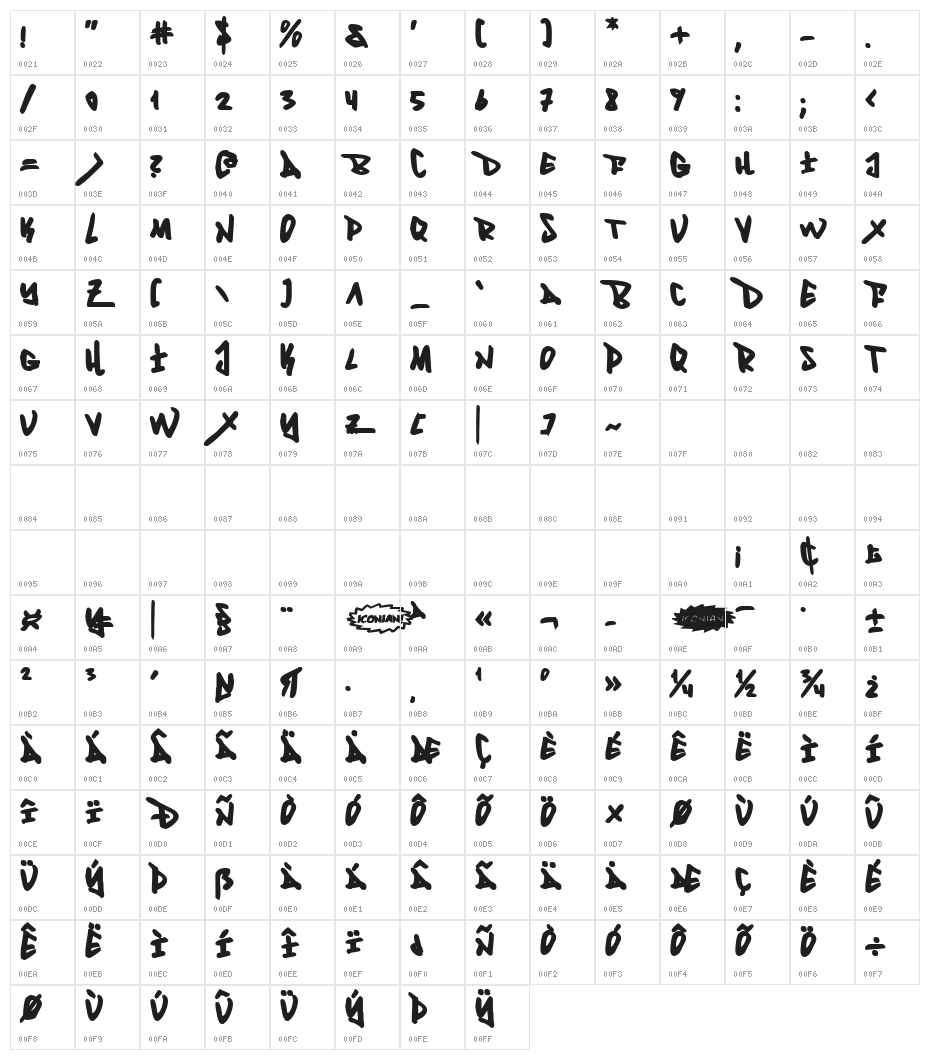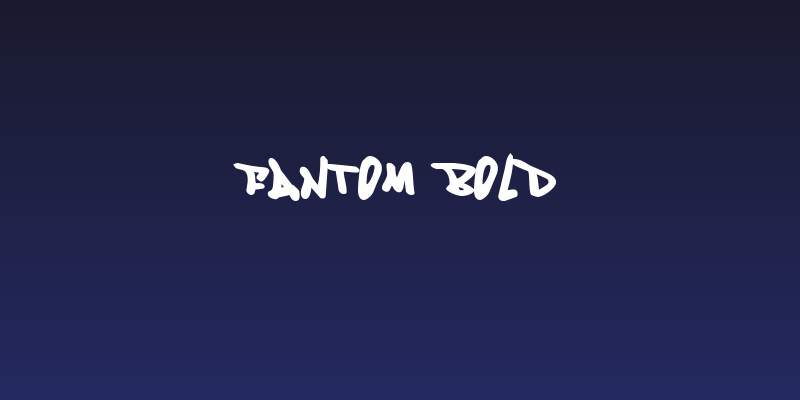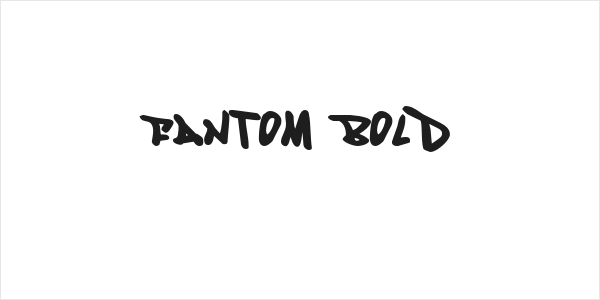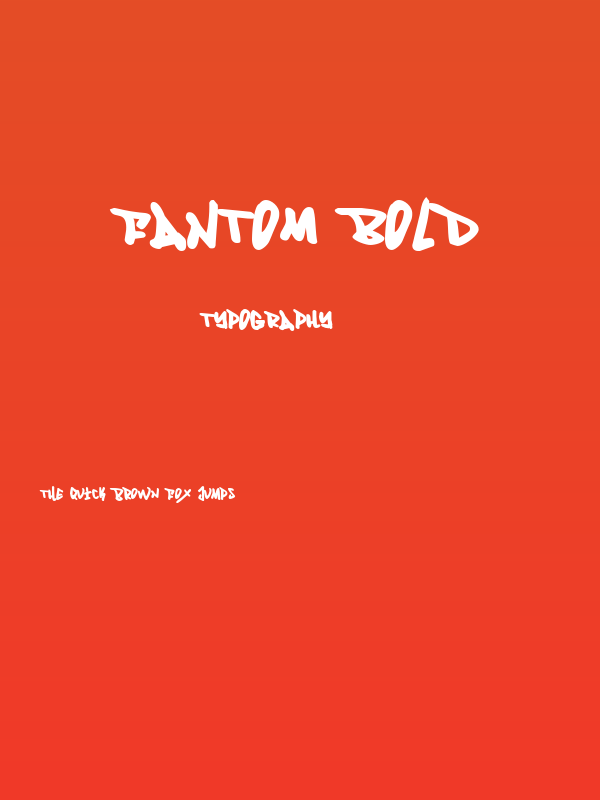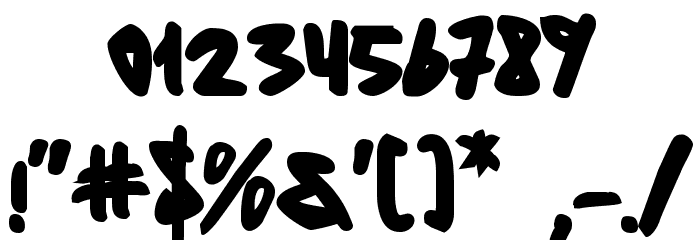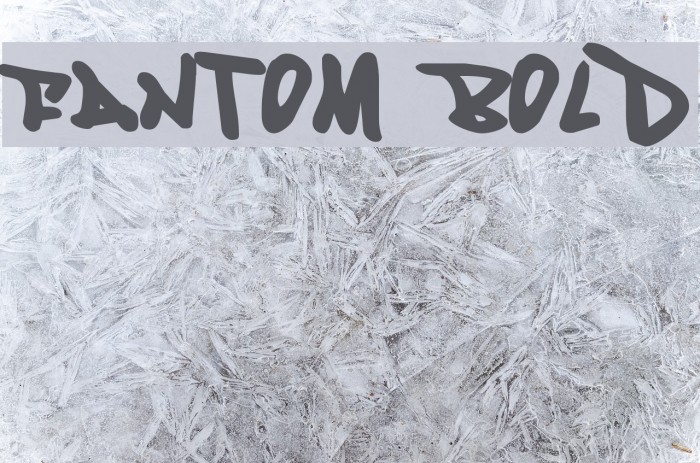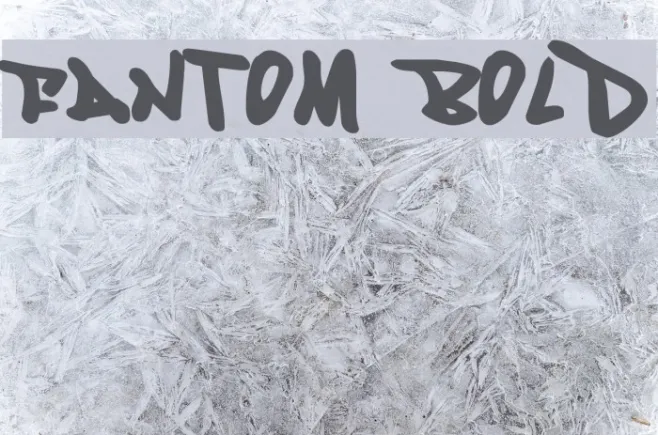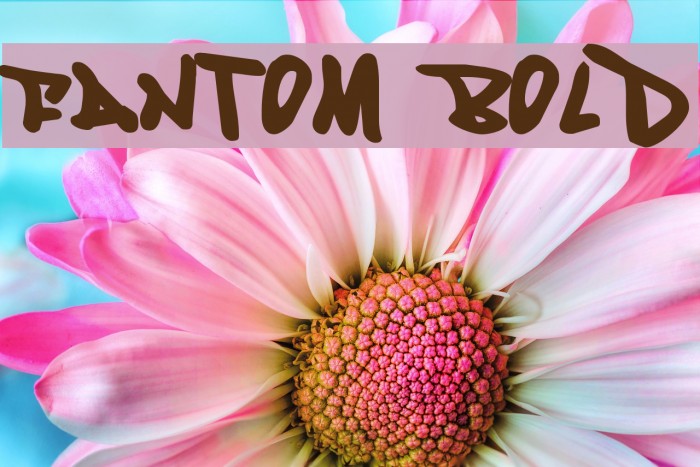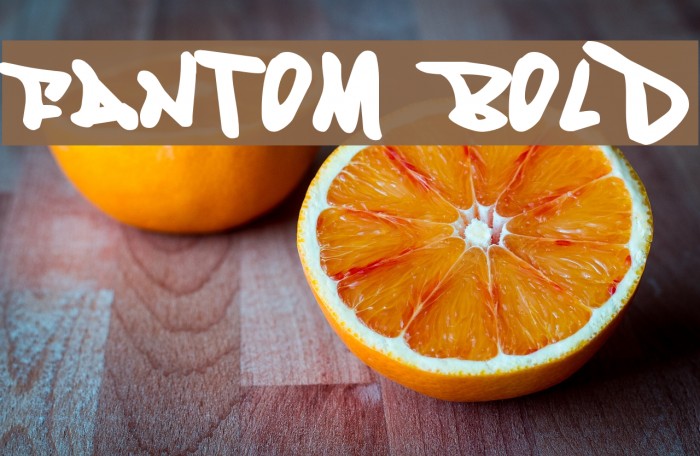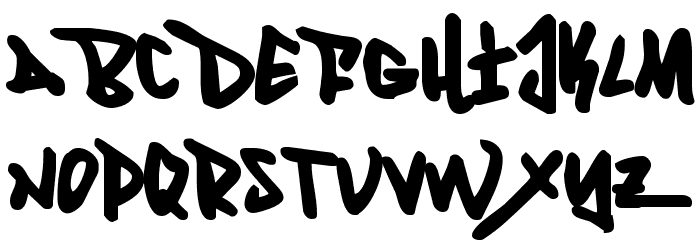
Fantom Bold Font
Fantom Bold Description
This font exhibits a bold, graffiti-inspired style with thick, expressive strokes and a dynamic, energetic appearance. The characters are highly stylized, featuring angular lines and a sense of movement that suggests a hand-drawn quality. The uppercase and lowercase letters maintain a consistent visual theme, with exaggerated curves and sharp edges that create a sense of urgency and vibrancy. The numerals and special characters follow the same design principles, ensuring a cohesive look across all glyphs. This font is ideal for projects that require a bold statement or a street-art aesthetic.
| Overall Style | Modern, Urban |
| Proposed Projects | Ideal for street art designs, urban-themed posters, music album covers, and bold branding projects. |